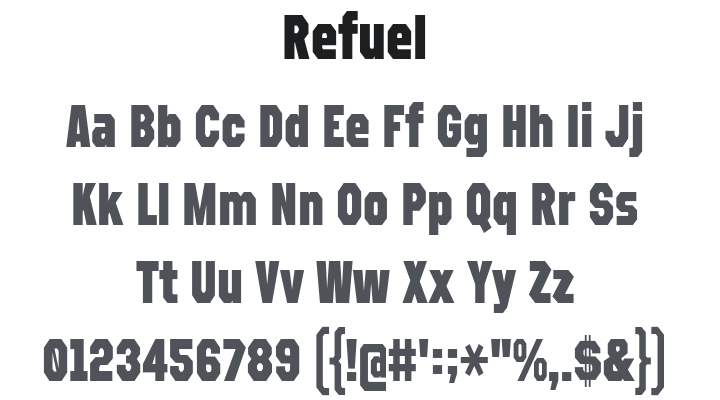
Refuel Font
About Refuel
Refuel is built for designers who want precision engineering without sacrificing versatility. Inspired by mid-century aviation lettering, it channels the clarity and authority of aircraft markings into a modern, fully equipped type system. Its octagonal framework is clean and purposeful, with a balance of utility and style that makes it just as effective in a tight UI as it is on a commanding headline.